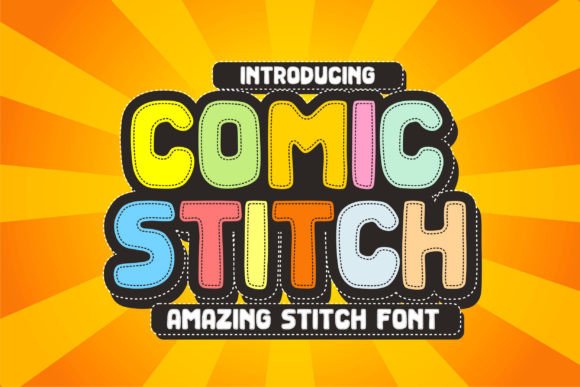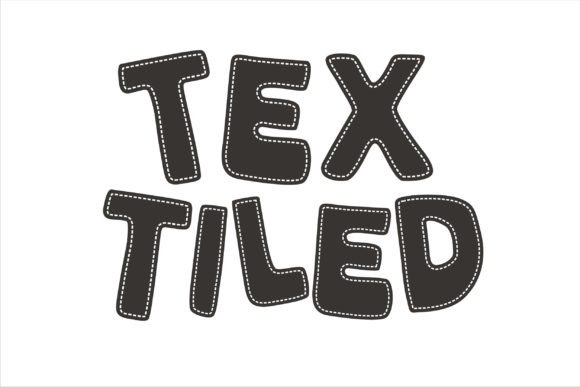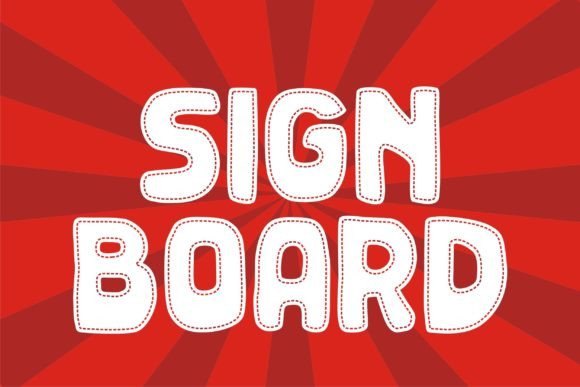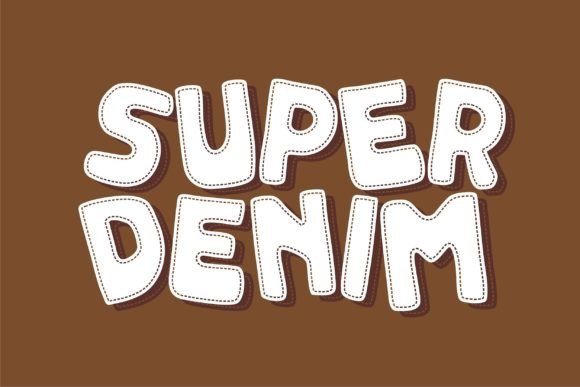
Comic Stitch Font: A Playful & Cute Display Font for Crafts!
About the Comic Stitch Font
Make a bold statement with Comic Stitch Font, a powerful and memorable font. Comic Stitch is a decorative font with a sewing texture theme, this font is very attractive with a fun and relaxed concept, this font is very suitable for designing comics, books, crafts and designs for children.
Comic Stitch’s playful, handcrafted aesthetic makes it ideal for projects needing a touch of whimsical charm. It excels in headlines, logos for children’s brands, packaging for craft supplies, and short-form content like social media posts or greeting cards. Avoid using it for large blocks of body text or UI elements; its decorative nature reduces readability in extended passages.
Pairing Comic Stitch with a clean sans-serif like Open Sans for body text provides a strong contrast, balancing its playful energy with a sense of order. Alternatively, a slightly more decorative script font could enhance its handcrafted feel for invitations or branding related to handmade goods. A geometric sans-serif would offer a modern counterpoint for a more contemporary feel.
The font’s core personality is undeniably friendly and approachable, conveying a sense of handmade warmth and lightheartedness. This makes it well-suited to brands targeting a younger demographic or those emphasizing craft, creativity, and playful engagement.
Comic Stitch Font Usage Examples
Comic Stitch Font Example